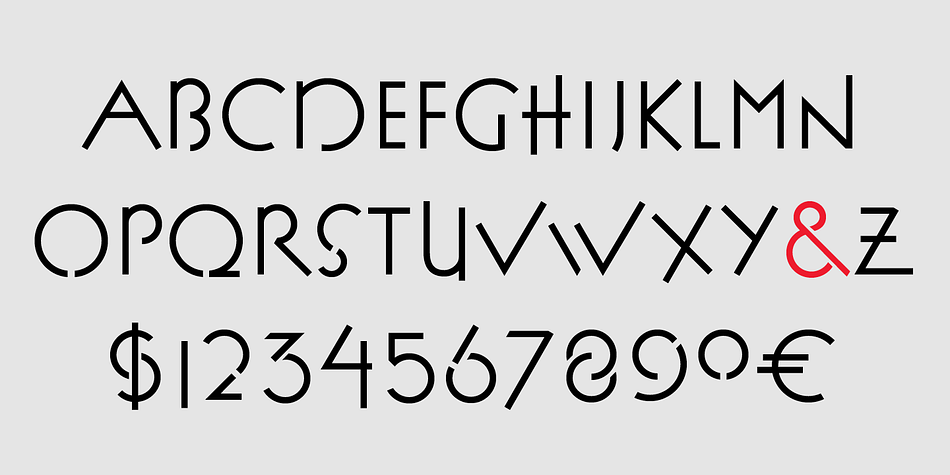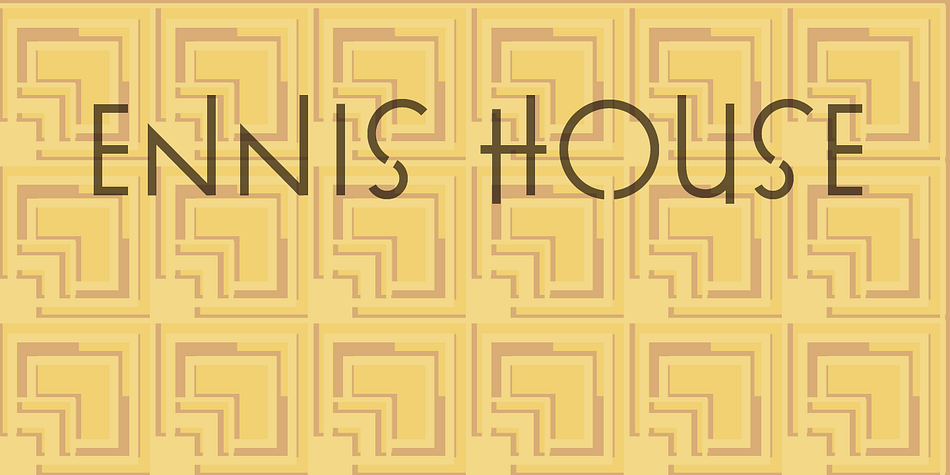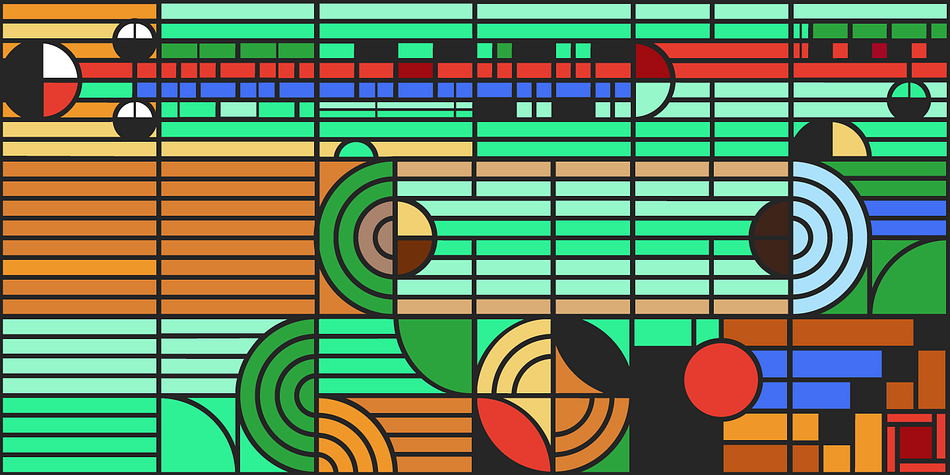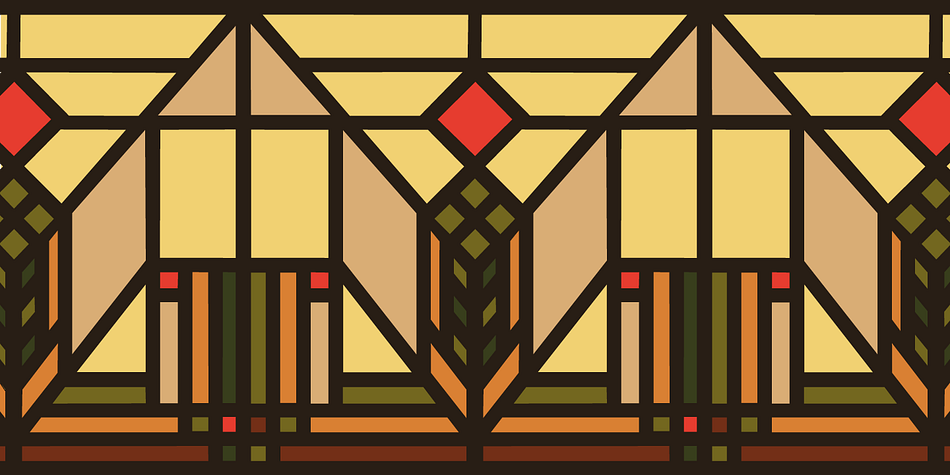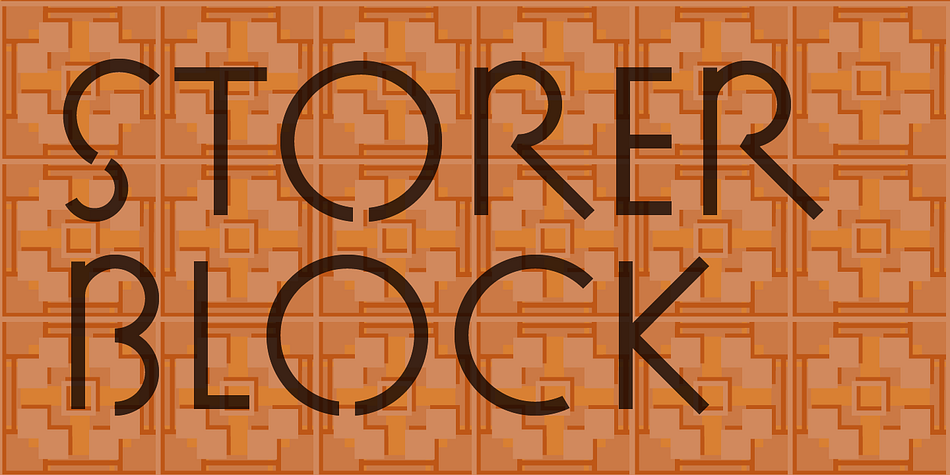
P22 FLW Exhibition is a display sans and dingbat font family. This typeface has four styles and was published by P22 Type Foundry.
Based on the lettering styles of Frank Lloyd Wright. the Exhibition lettering was intended primarily to accompany Frank Lloyd Wright’s exhibition drawings and models.